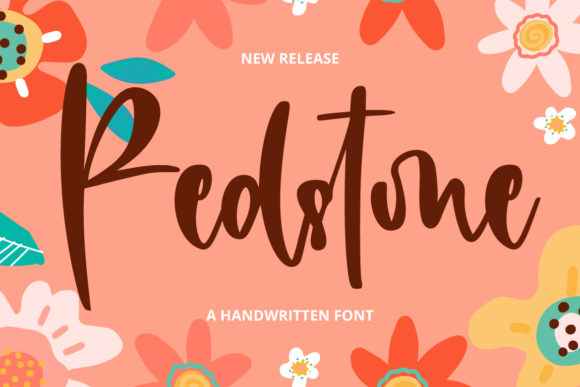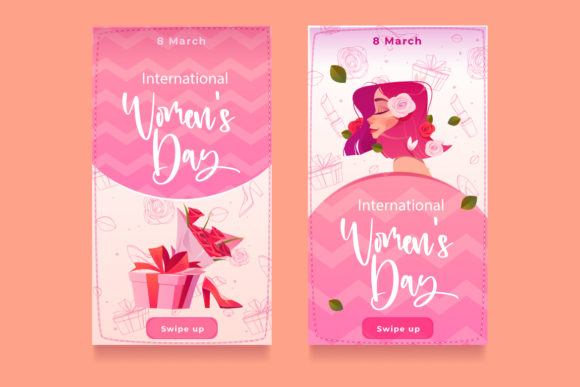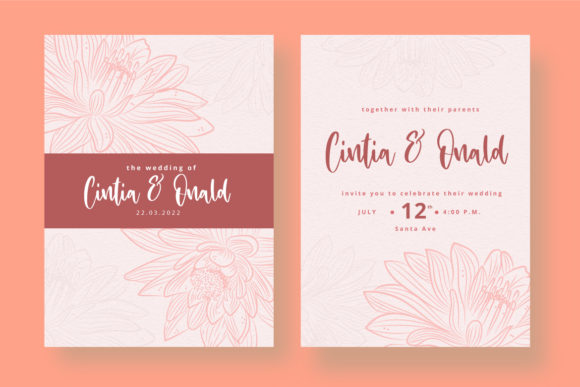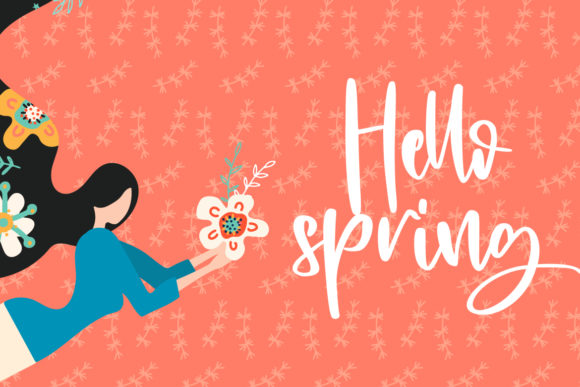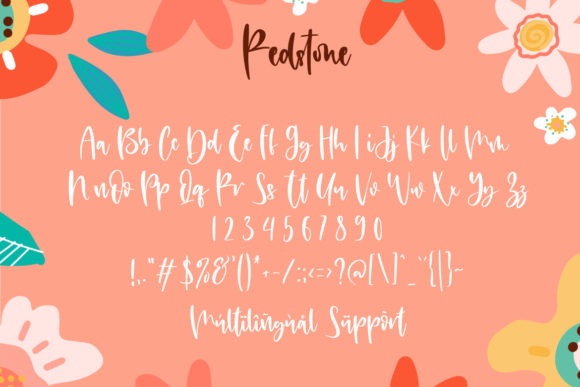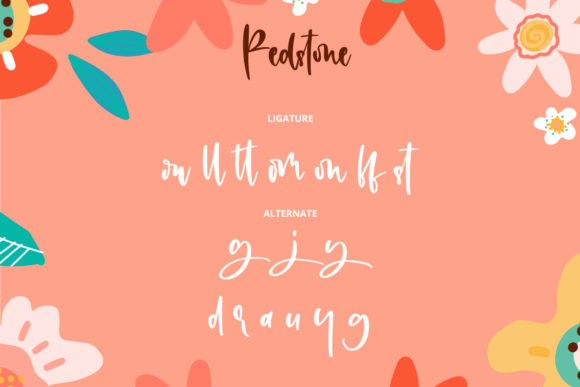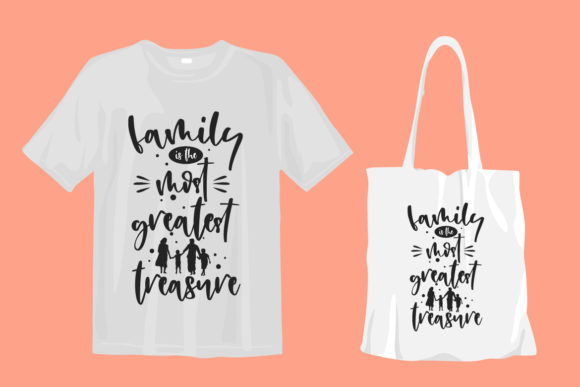
Redstone Font
About Redstone Font
Redstone is a contemporary and delightful handwritten font that has been meticulously crafted to become a beloved favorite. Its casual and approachable charm gives it a down-to-earth and friendly appeal, making it a versatile and captivating choice for various design projects.
With its excellent readability and smooth lines, Redstone is well-suited for a wide range of applications, from crafting designs and wedding invitations to social media graphics and branding materials. Its modern and trendy look adds a touch of elegance and sophistication to any project.
The font’s PUA encoding allows easy access to all the glyphs and swashes, empowering designers to add unique flourishes and decorative elements to their work effortlessly. Whether you’re looking to create playful and fun designs or elegant and stylish ones, Redstone provides the flexibility to bring your creative ideas to life.
When incorporated into your projects, Redstone’s versatile and dynamic nature truly enhances their overall appearance, making them stand out and leave a lasting impression on your audience. Whether you’re designing logos, product packaging, quotes, or greeting cards, Redstone will add a touch of personality and creativity to every design.
In summary, Redstone is a modern and engaging handwritten font that offers a delightful blend of versatility and charm. Its PUA encoding ensures seamless access to all its features, allowing designers to create captivating and lively designs with ease. When you add Redstone to your creative ideas, you’ll notice how it elevates them and gives them a fresh and inviting appeal.